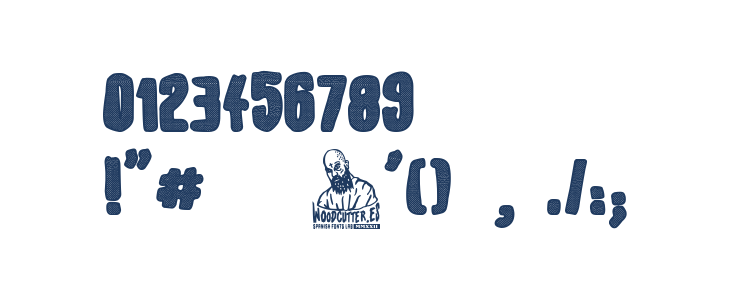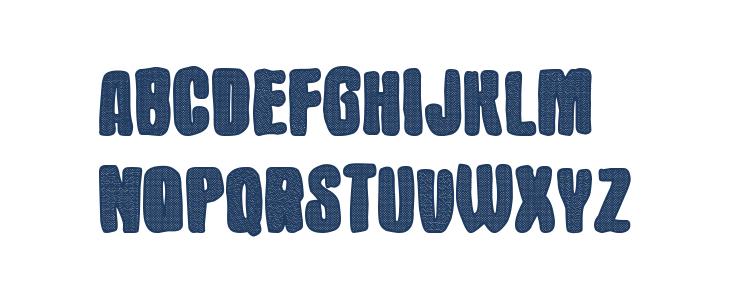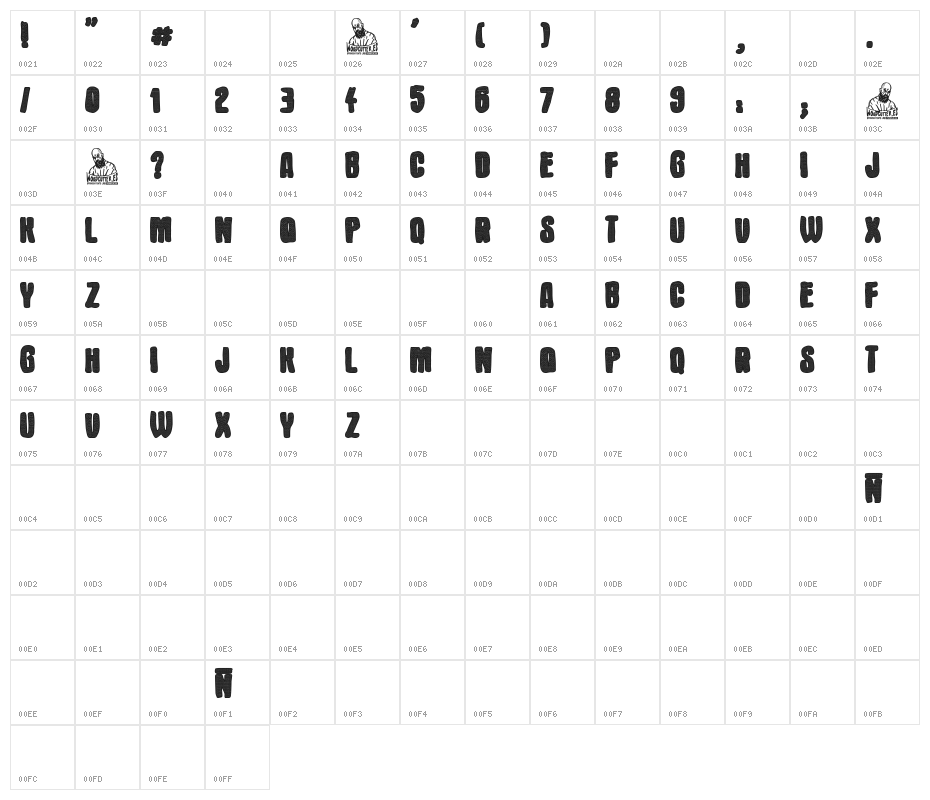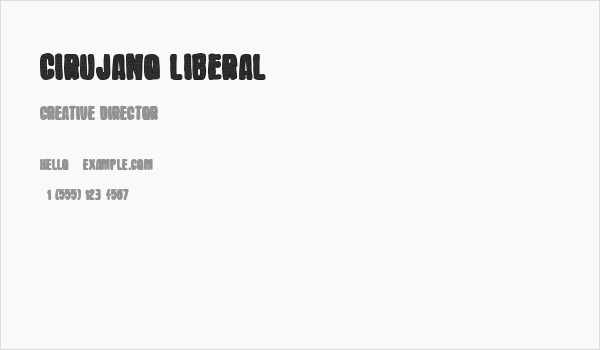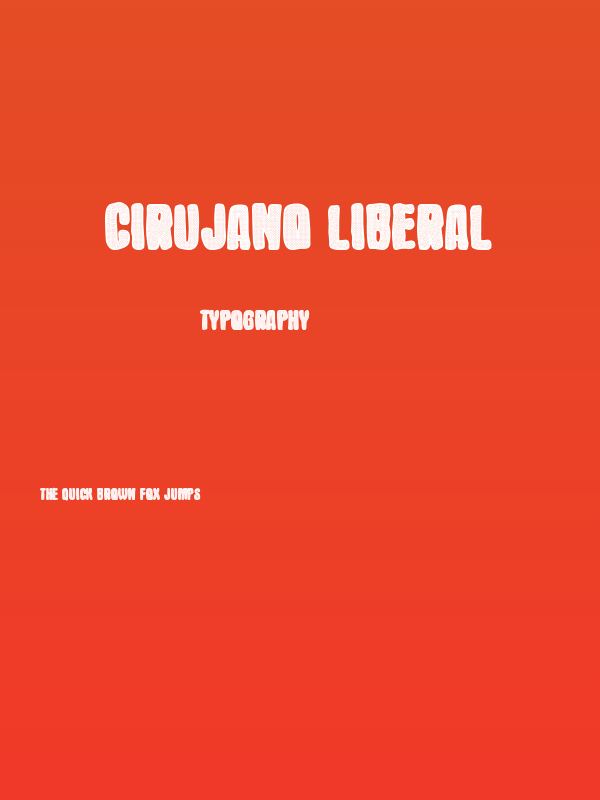
Cirujano Liberal Font
Cirujano Liberal Description
| Overall Style | Decorative, Playful, Hand-drawn |
| Use Case | Headlines, Posters, Logos, Short phrases |
| Proposed Projects | Posters, comic books, childrenΓ’β¬β’s books, party invitations, branding for playful or creative products. |